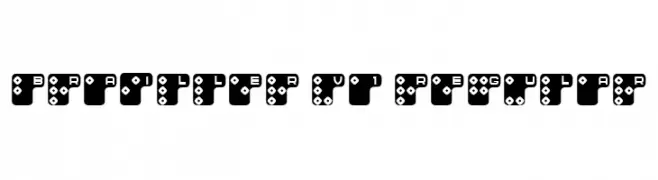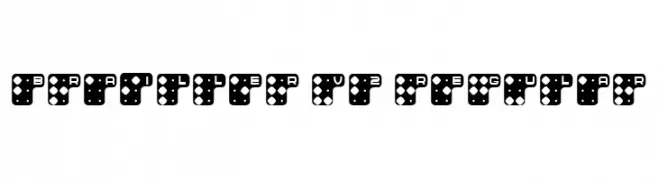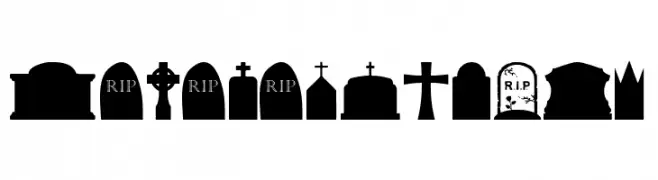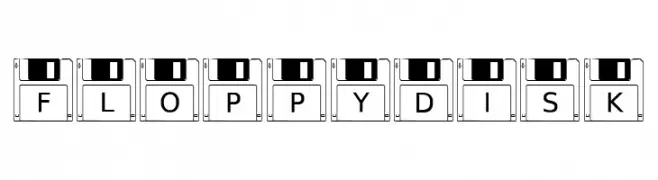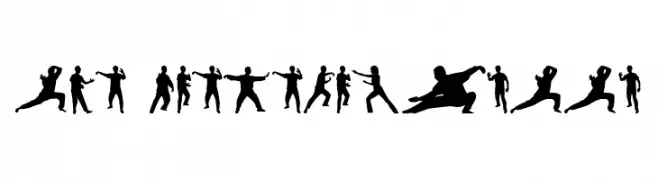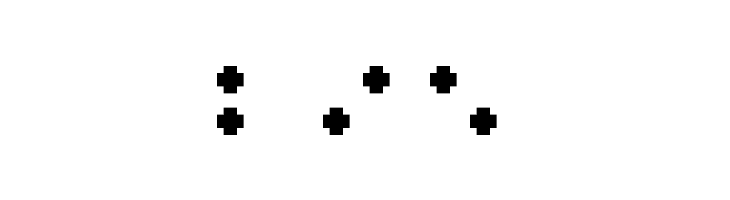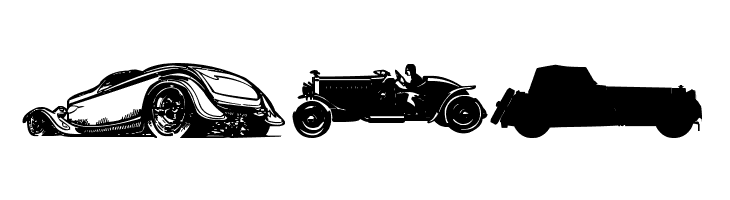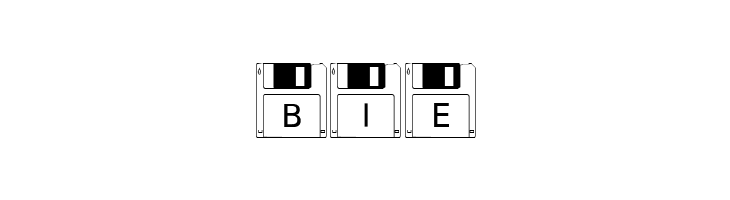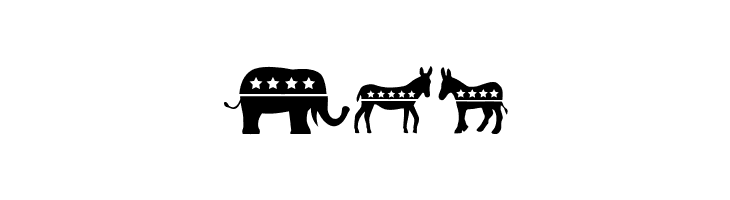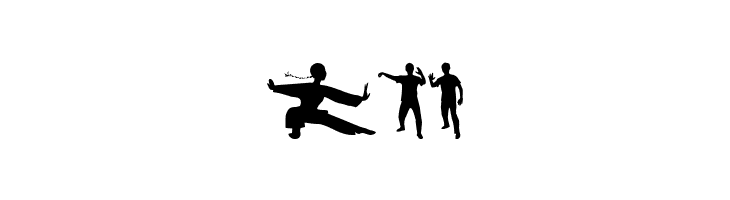
A pixelated Braille-inspired font with a minimalist and digital aesthetic.
A decorative font featuring artistic representations of the Chinese zodiac animals.
A display font with vintage car illustrations as glyphs.
A nostalgic font with characters embedded in floppy disk outlines.
A decorative font featuring political party symbols for thematic use.
Martial arts silhouette font with Tai Chi poses.
A modern, bold font inspired by the Braille system, featuring distinct dot patterns within rectangular shapes.
A visually striking font that combines Braille dots with a bold, modern design.
A playful collection of Holland-themed dingbats featuring iconic Dutch symbols.
Silhouette icons of gravestones and cemetery symbols.